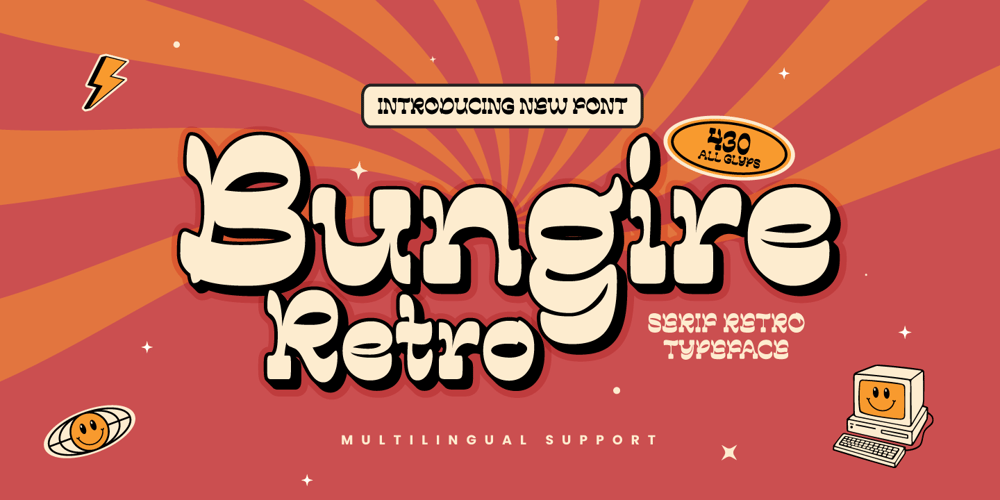
Bungire Retro Font Family was designed by Lita Faolina and published by Product Type. Bungire Retro contains 1 styles and family package options. Introducing Bungire Retro, the ideal answer for your projects with a retro, vintage, or classic modernist theme! Bungire Retro is the perfect font for bringing a sense of nostalgia and charm to your creations because of its distinctive and eye-catching design.With its extensive selection of alternates, Bungire Retro lets you personalize and produce genuinely distinctive typographic designs. When creating logos, posters, invitations, or other creative endeavors, Bungire Retro’s distinct retro vibes will enthrall your audience. Additionally, because of its linguistic support, it may be used for projects everywhere.With Bungire Retro, you can take your ideas to the next level and let your creativity shine. Get Bungire Retro right away to take your audience back to the heyday of classical modernism!What’s Included :- File font- All glyphs Iso Latin 1- We highly recommend using a program that supports OpenType features and Glyphs panels like many Adobe apps and Corel Draw, so you can see and access all Glyph variations.- PUA Encoded Characters – Fully accessible without additional design software.- Fonts include Multilingual support.Thank you for your purchase!